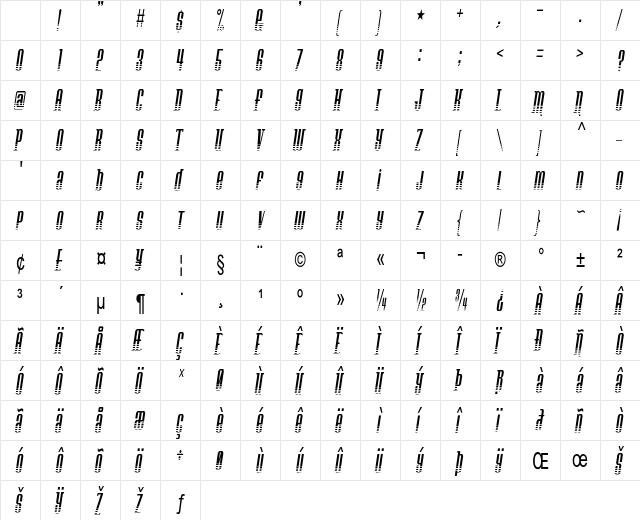
Complete Quickster Condensed Regular glyph index. Displaying only characters natively supported by Quickster Condensed Regular font.
Quickster is a composed and adaptable typeface that performs quietly and consistently across a wide range of design contexts. Its narrow stance lets it pack a punch even in space-constrained designs.